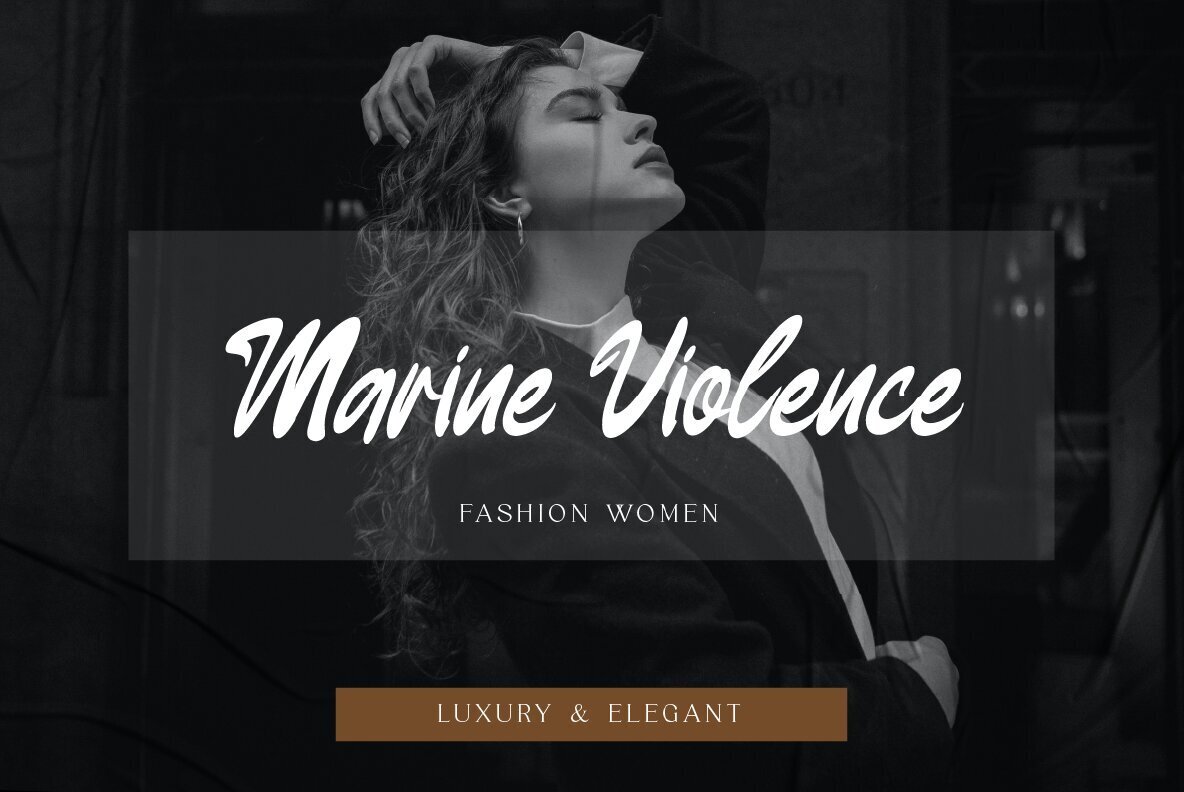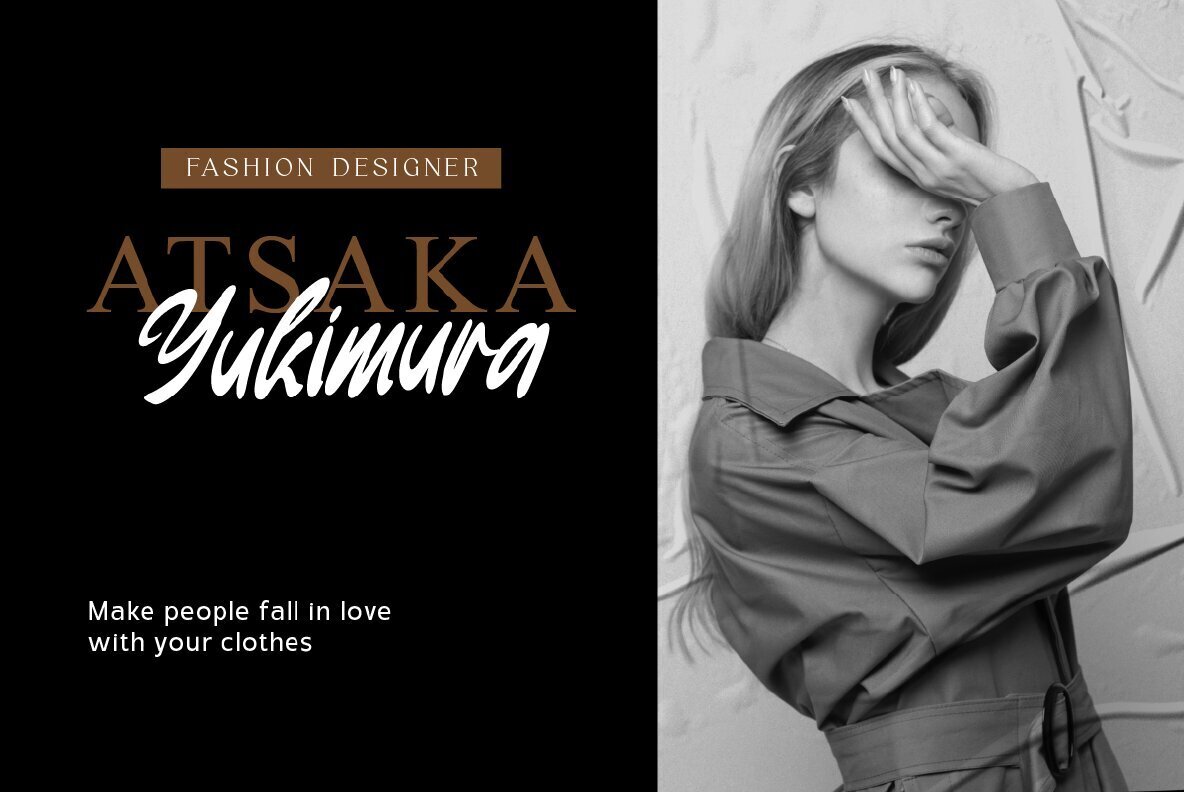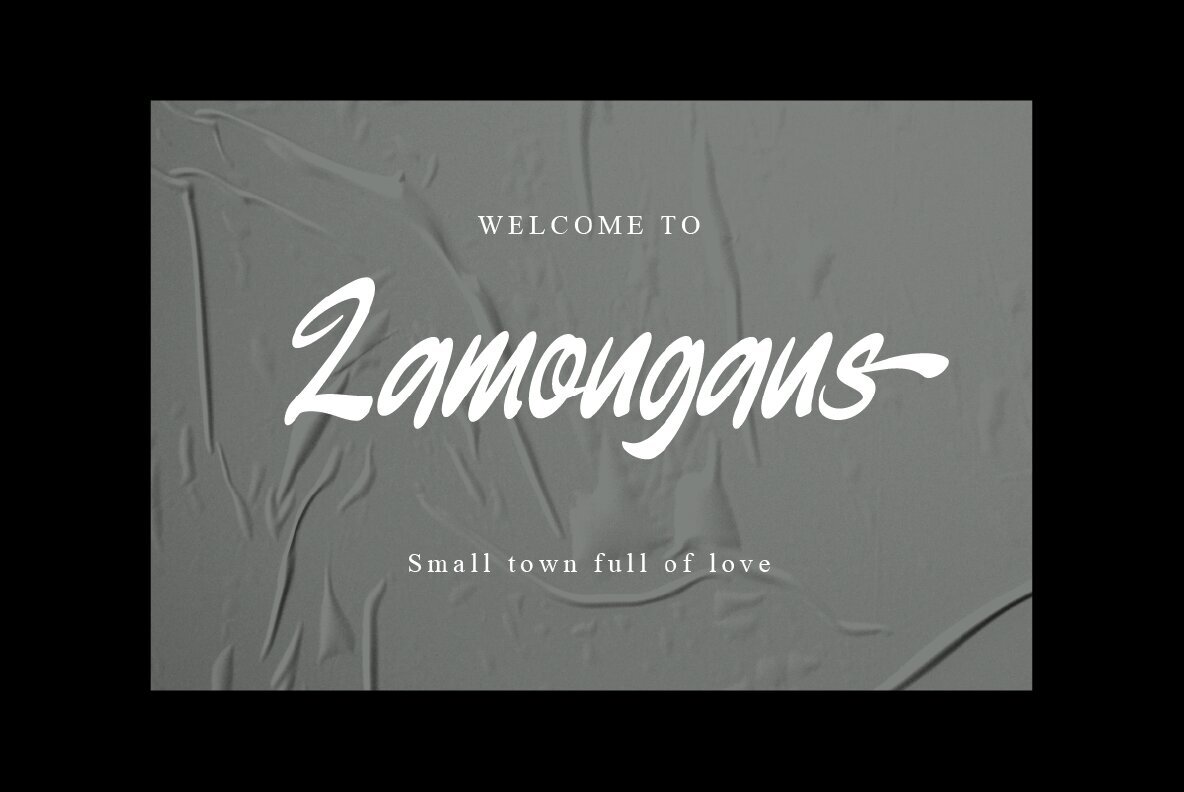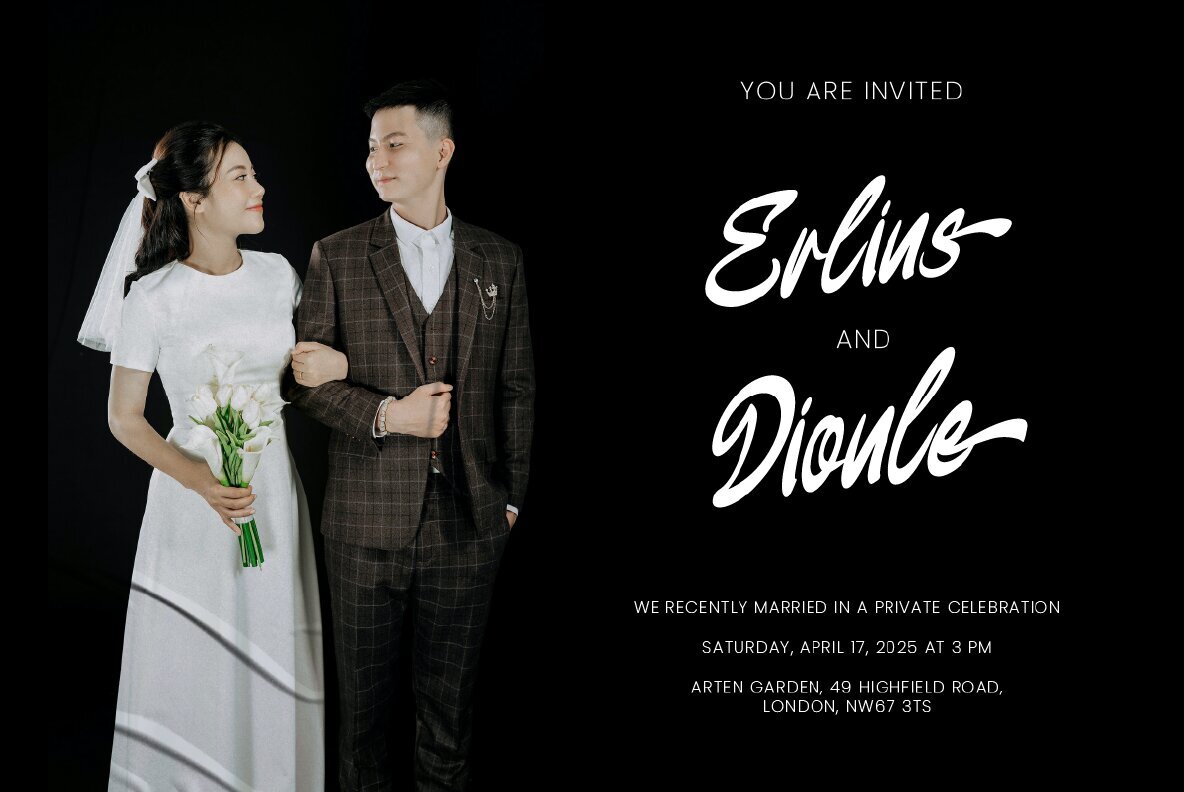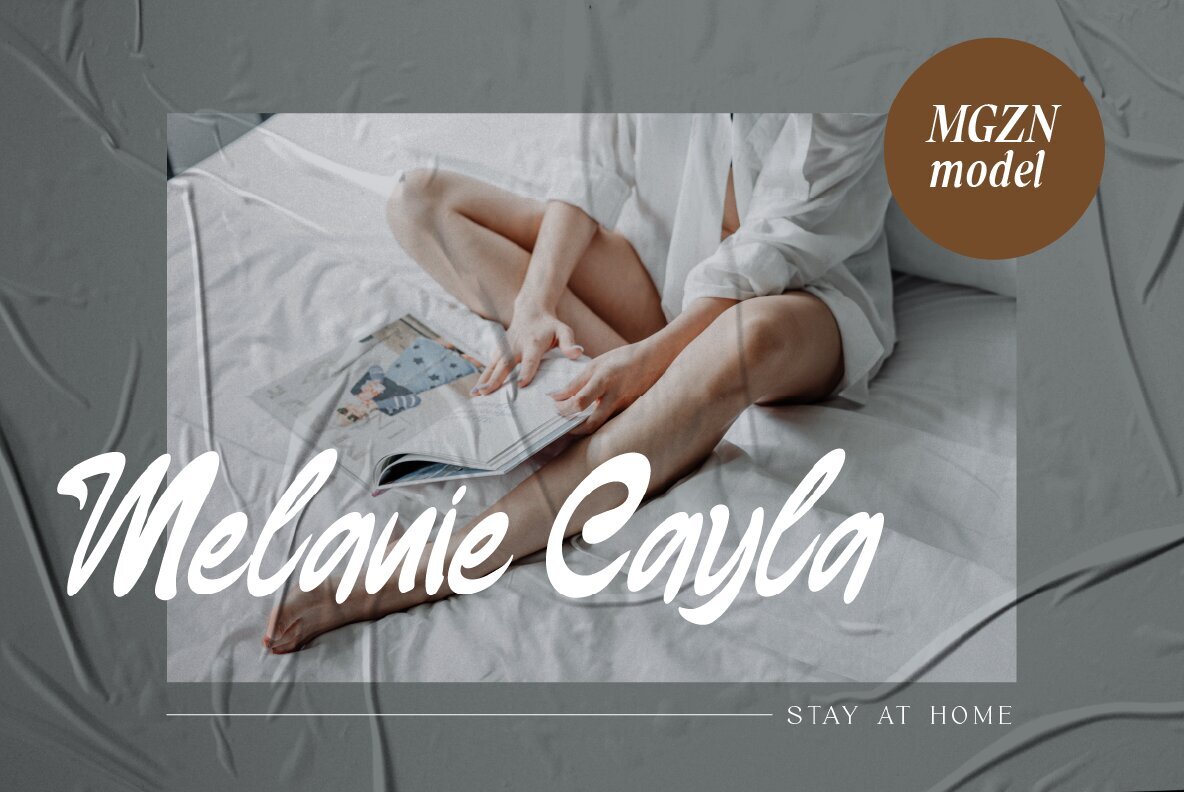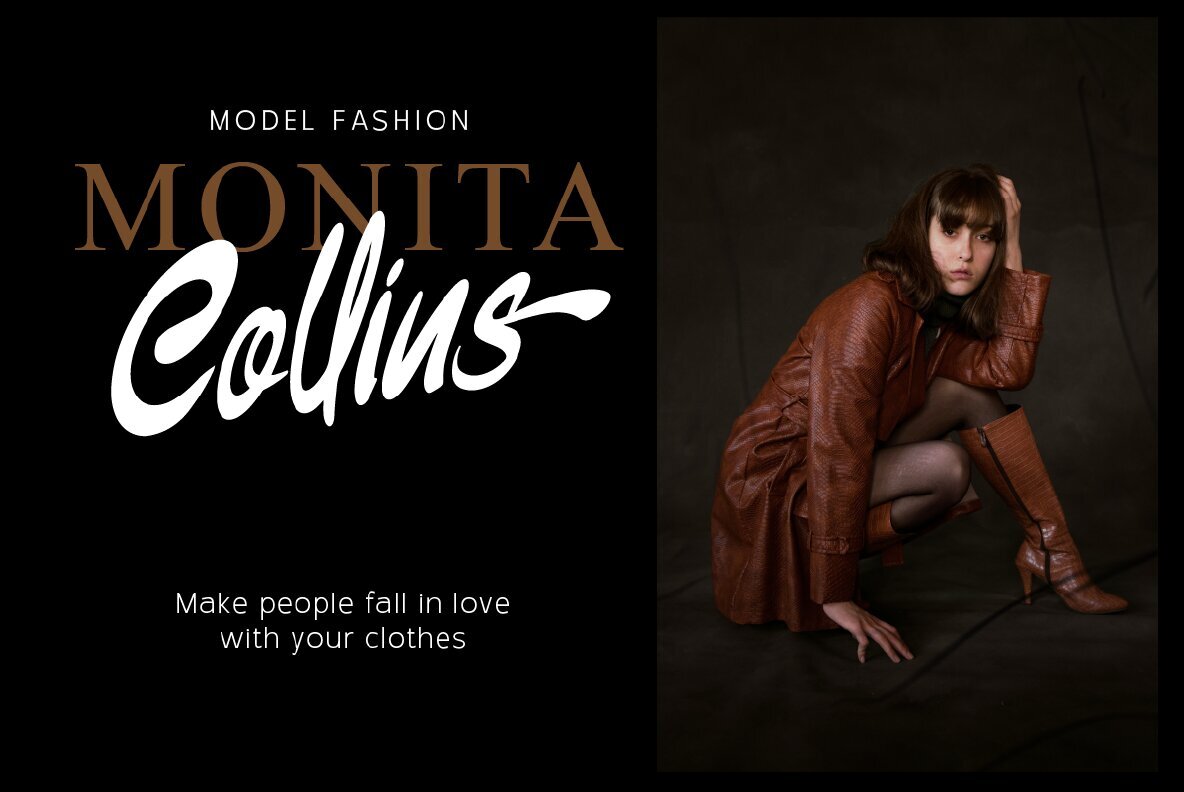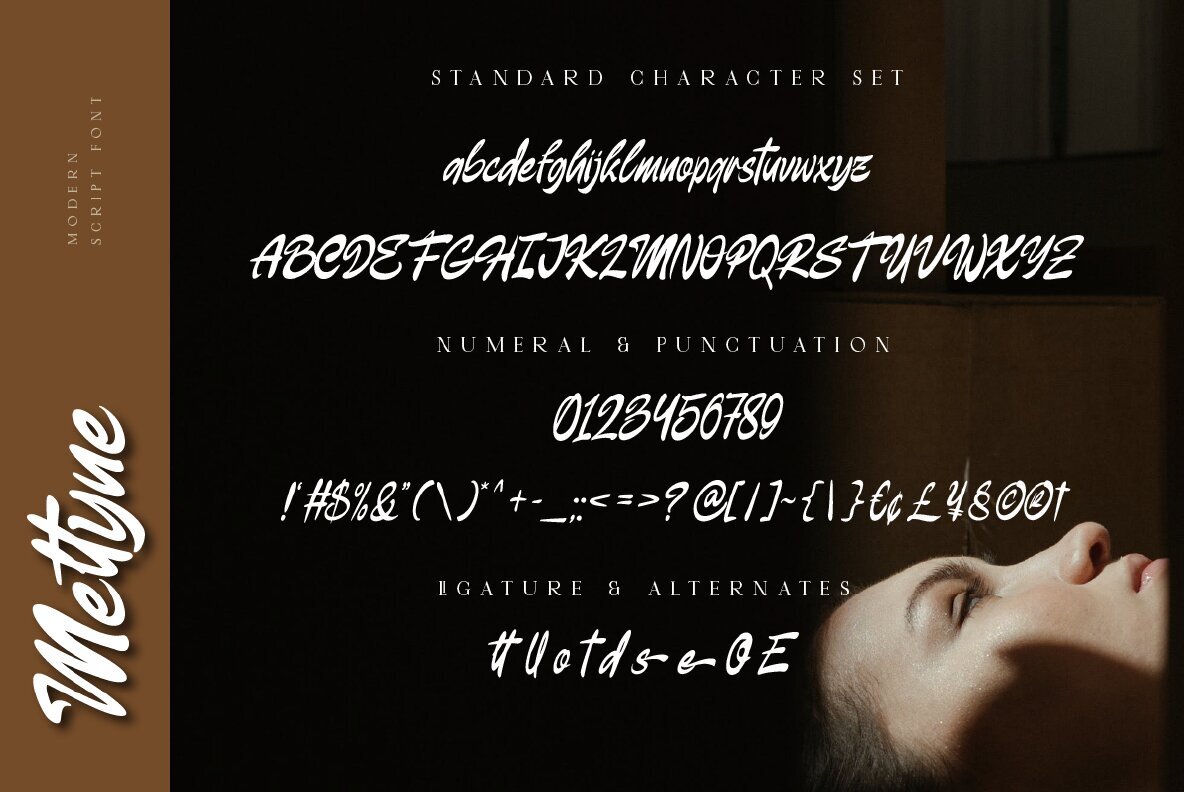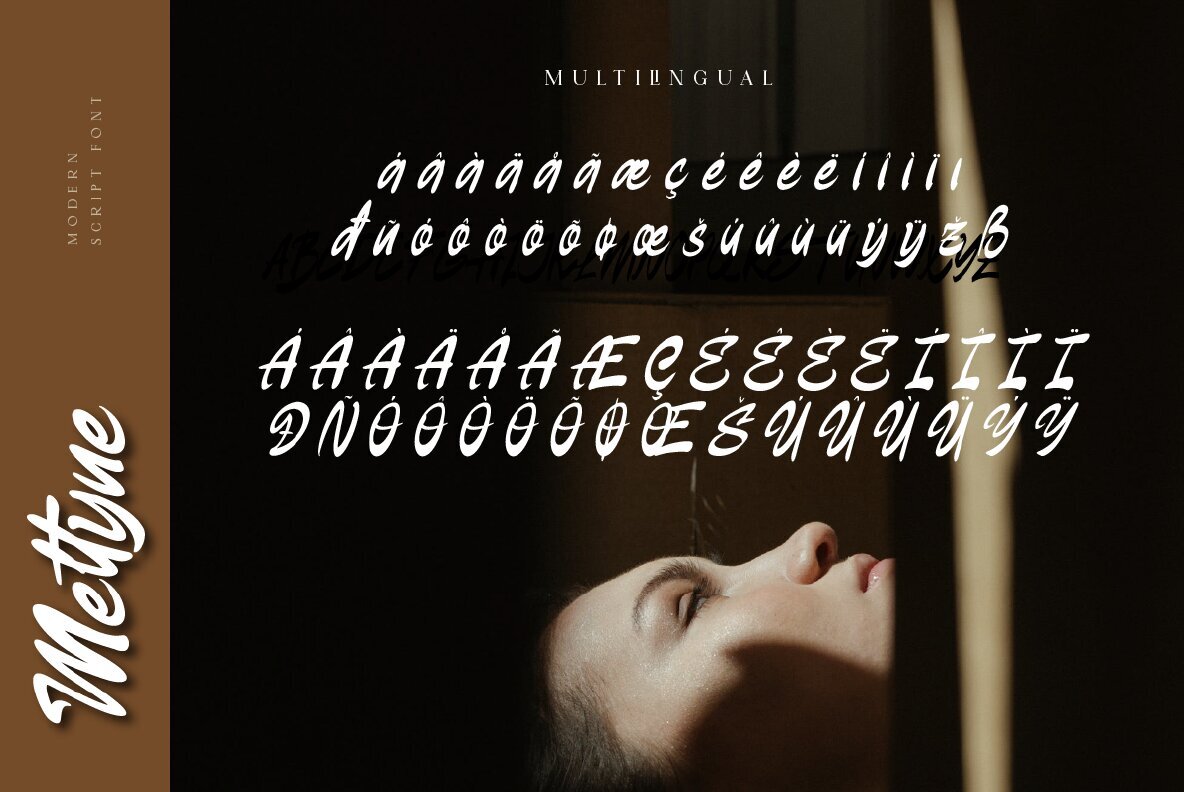
Meltyne Font
Meltyne Regular
Meltyne Font offers a naturally modern script style designed to provide a stylish touch to your design projects. Its eye-catching appeal is perfect for enhancing logo designs, brand imagery, quotes, product packaging, merchandise, and social media posts. For any inquiries, feel free to contact us. Enjoy crafting with Meltyne and thank you for your support!Meltyne: A Fresh Script Font with Modern Appeal